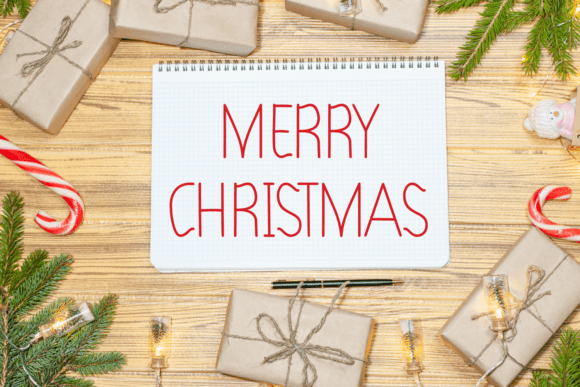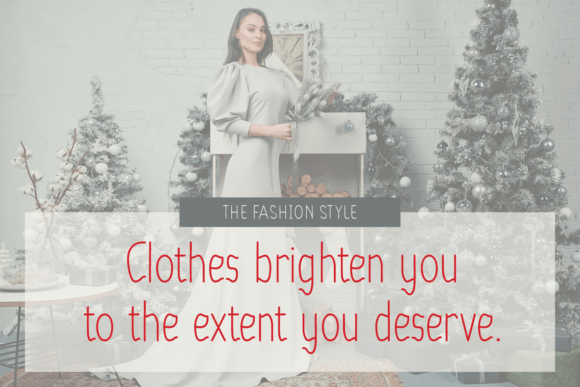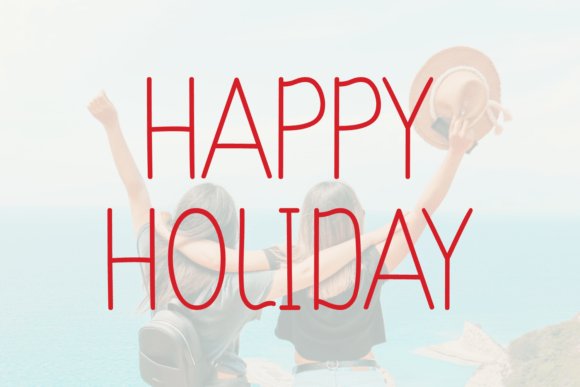
Introducing Families Christmas Font: The Perfect Addition to Your Holiday Designs
Are you looking for a font that captures the essence of the holiday season? Do you want to add a touch of elegance and sophistication to your Christmas designs? Look no further than Families Christmas Font, a beautiful and versatile handwritten font that’s perfect for a wide range of applications.
A Cute and Beautiful Handwritten Font
Families Christmas Font is a stunning handwritten font that’s sure to delight designers and crafters alike. Its classy and modern look makes it an excellent choice for anyone looking to add a touch of sophistication to their holiday designs. Whether you’re creating quotes, branding materials, invitations, stationery, wedding designs, or social media posts, this font is sure to impress.
What Makes Families Christmas Font So Special?
So, what sets Families Christmas Font apart from other fonts on the market? Here are just a few reasons why this font is a must-have for designers and crafters:
- Unique and eye-catching design: Families Christmas Font features a distinctive and stylish design that’s sure to grab attention. Its elegant and refined look makes it perfect for creating sophisticated holiday designs.
- Versatile and adaptable: This font is incredibly versatile and can be used for a wide range of applications, from digital designs to print materials.
- Easy to read and use: Despite its elegant design, Families Christmas Font is surprisingly easy to read and use, making it perfect for creating designs that need to be both beautiful and functional.
How to Use Families Christmas Font in Your Designs
Families Christmas Font is an incredibly versatile font that can be used in a wide range of designs. Here are just a few ideas to get you started:
- Holiday quotes and posters: Use Families Christmas Font to create beautiful and inspiring holiday quotes and posters that are sure to delight your audience.
- Wedding designs and invitations: This font is perfect for creating elegant and sophisticated wedding designs and invitations that will make your clients swoon.
- Branding and packaging: Families Christmas Font can be used to create stunning branding and packaging designs that will help your clients stand out from the competition.
- Social media posts and graphics: Use this font to create eye-catching social media posts and graphics that will help you connect with your audience and build your brand.
Why Designers and Crafters Love Families Christmas Font
Families Christmas Font has quickly become a favorite among designers and crafters, and it’s easy to see why. Here are just a few reasons why this font is a must-have for anyone who loves to create:
- High-quality design: Families Christmas Font features a high-quality design that’s both elegant and sophisticated.
- Easy to use: This font is surprisingly easy to use, even for those who are new to design.
- Versatile and adaptable: Families Christmas Font can be used for a wide range of applications, making it an excellent addition to any designer’s toolkit.
| Font Name | Families Christmas Font |
| Author | Arnika Studio |